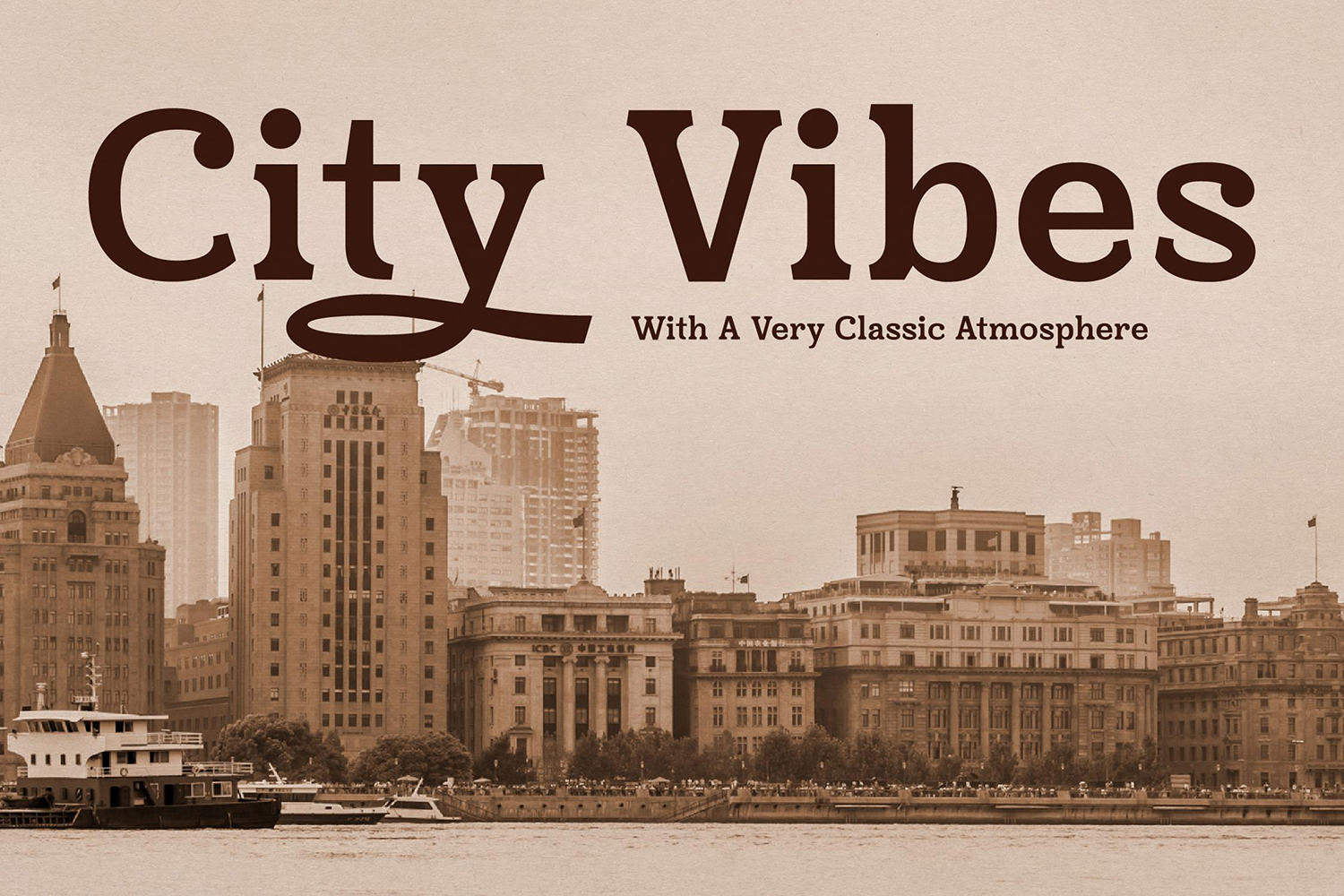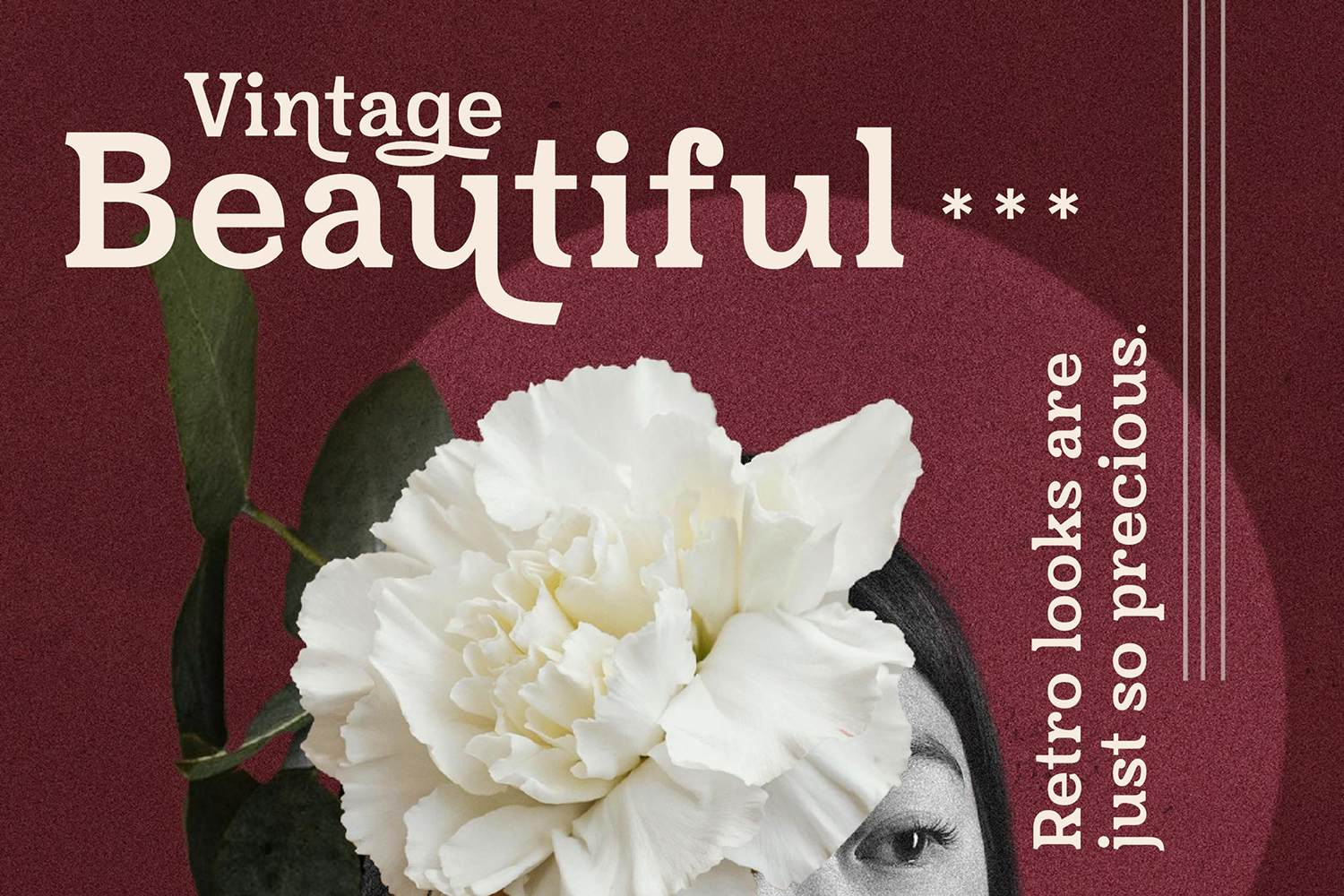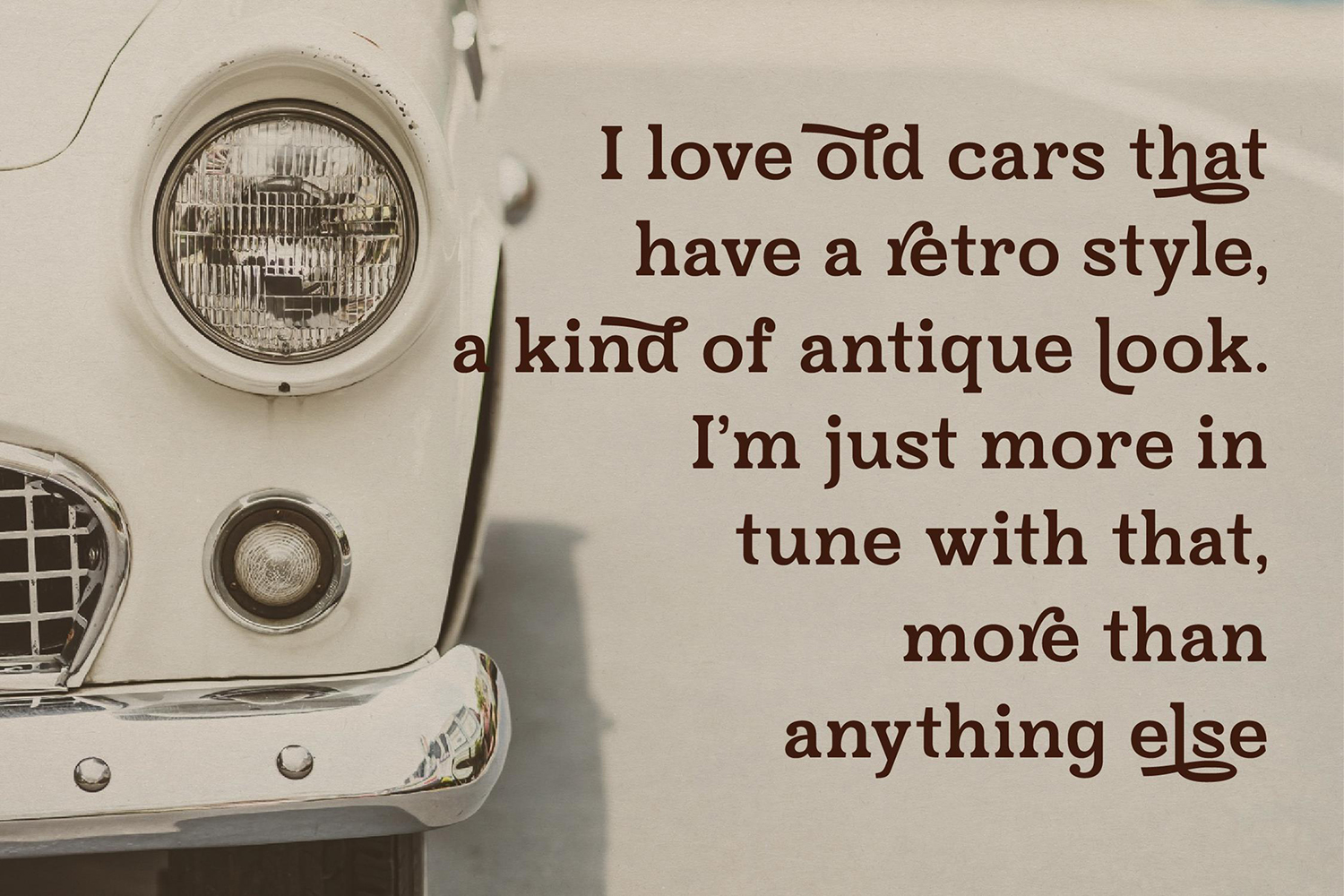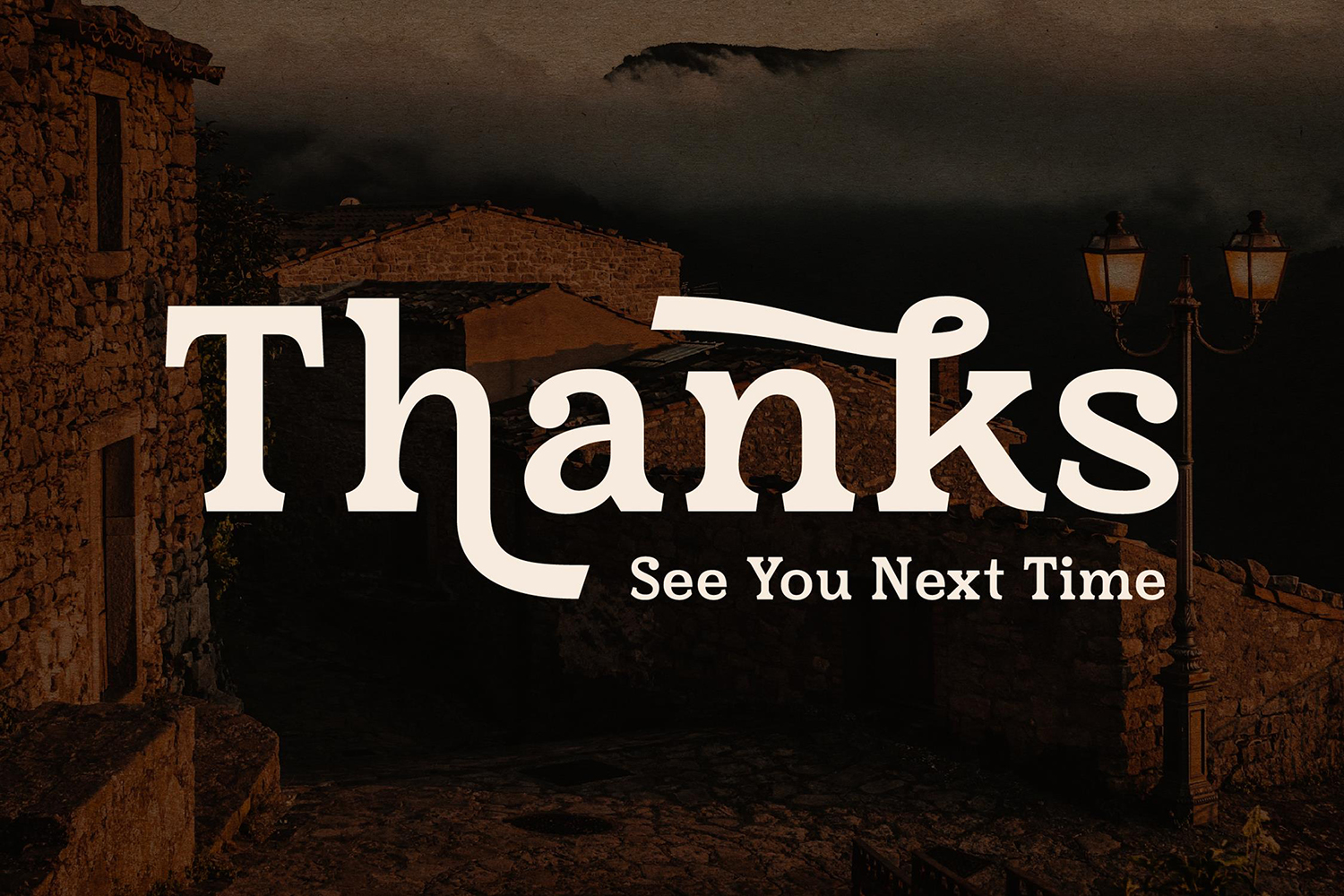
Dhrifted Free Font is a serif modern and classic typeface that his own unique style & modern look. This free typeface was designed by a talented Storytype Studio. If you like it don’t forget to check out the full version.